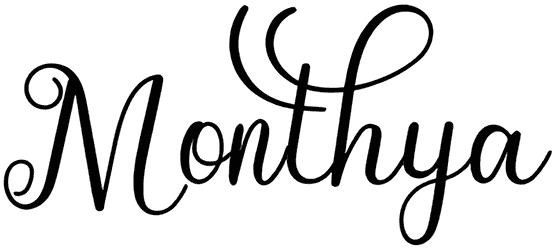
Monthya Font
Monthya font is a celebration of elegance and sophistication that adds a touch of class to any design project with its graceful curves. This romantic font has a unique ability to convey emotions and gives the text a distinct character that can convey the message it has.
From wedding invitations to product packaging and tattoos, this handwritten font can create a romantic feel and add a lot of variety to your brand with endless possibilities.